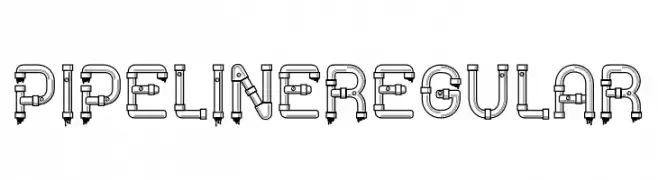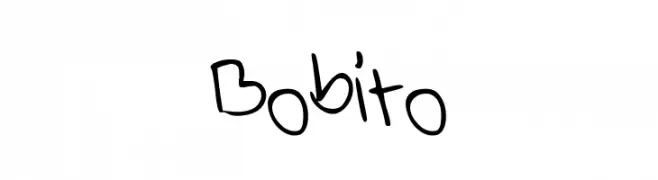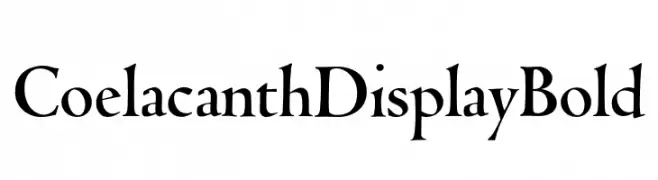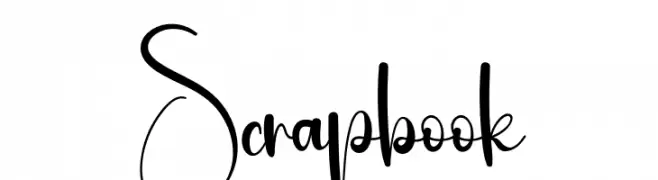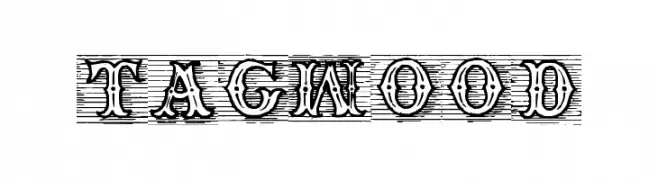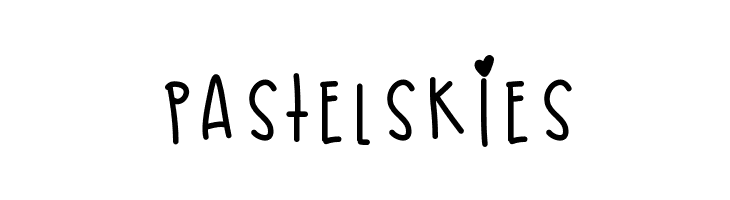
An industrial, pipe-inspired decorative font with intricate details.
Bold, geometric font with a three-dimensional shadow effect.
A modern, geometric font with consistent line weight and minimalist design.
A bold, high-contrast serif font with elegant curves and dramatic serifs.
A playful, casual handwritten font with irregular strokes and a lively appearance.
A playful, hand-drawn script font with a whimsical and lively style.
A modern, italic sans-serif font with clean lines and a dynamic appearance.
A playful, handwritten-style font with a modern and elegant touch.